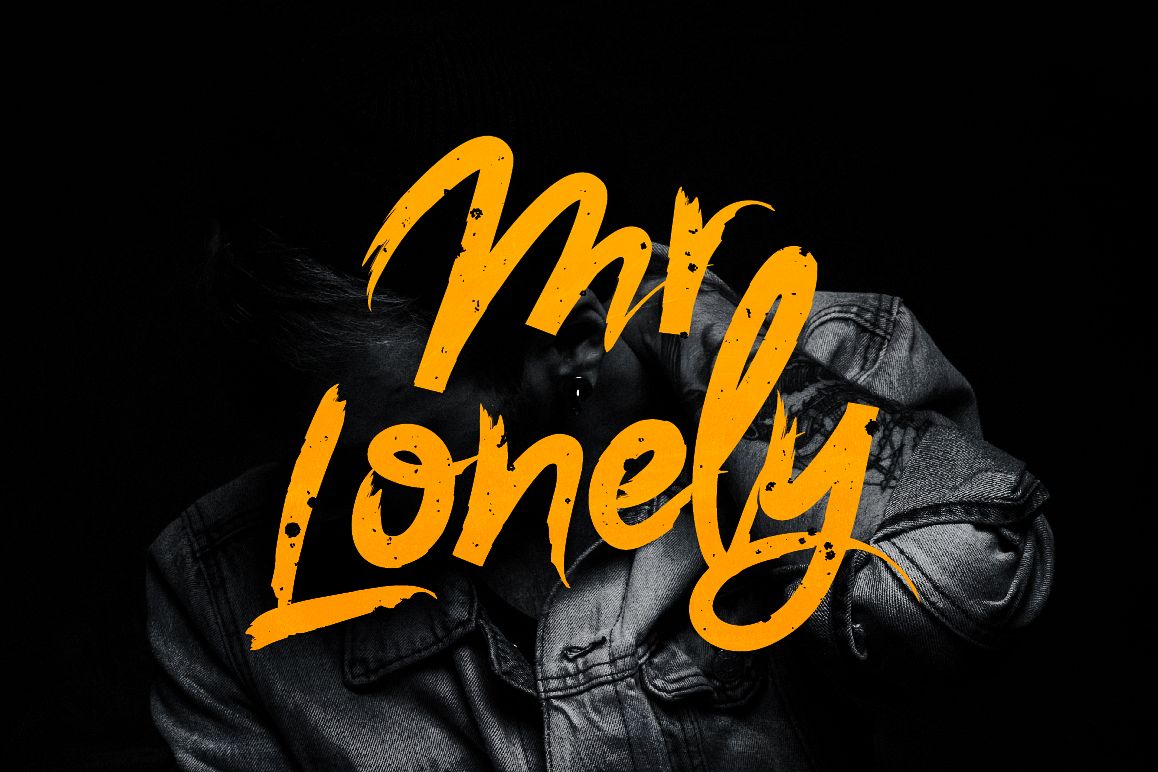
Mr. Lonely
Mr. Lonely is a brush font. It contains a full set of lower & uppercase letters, large range of punctuation, numerals, ligatures, cyrillic characters and multilingual support.
Perfect for logos, quotes, posters, branding projects, product packaging, t-shirt and applicable for any graphic design.